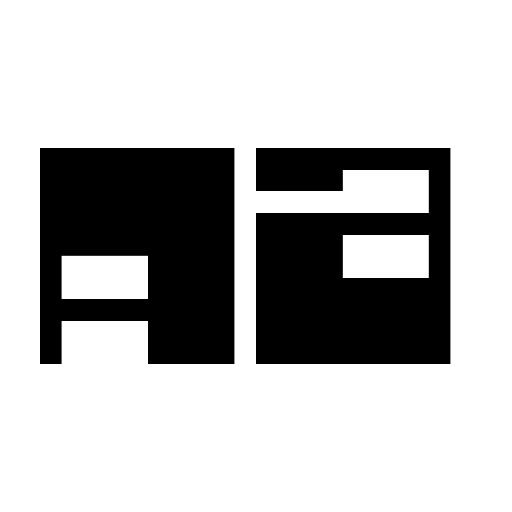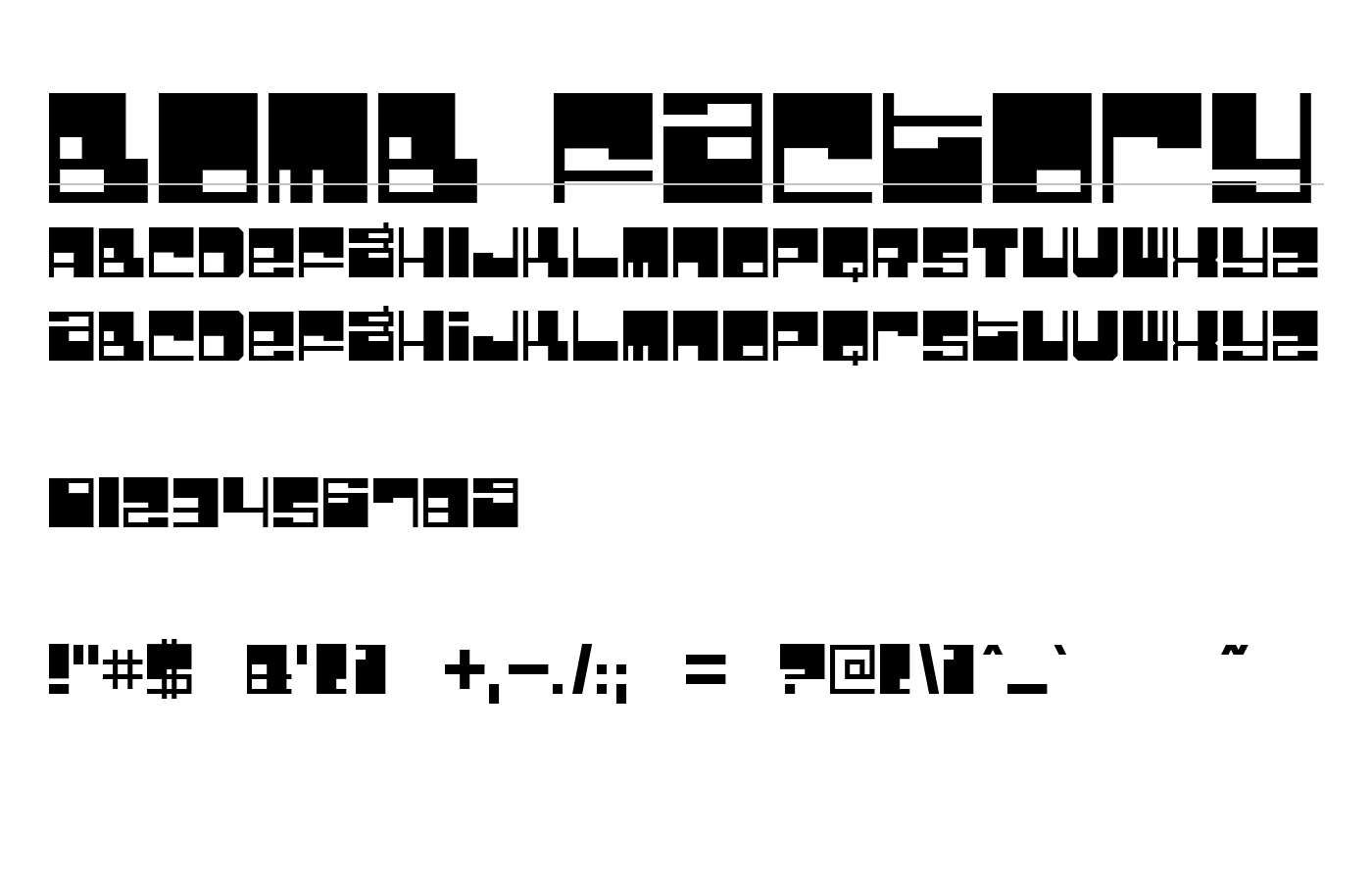
Bomb Factory Font is a bold, geometric sans serif that features a strikingly blocky and modular design, evoking a futuristic and technical vibe. Its heavy weight, high contrast between thick and thin elements, and squared shapes make it ideal for eye-catching headlines, posters, and branding projects that seek a strong, industrial, or digital aesthetic. This unique display font works best when used sparingly for impactful titles rather than body text due to its distinct and unconventional letterforms.
Bomb Factory Font
About Bomb Factory Font